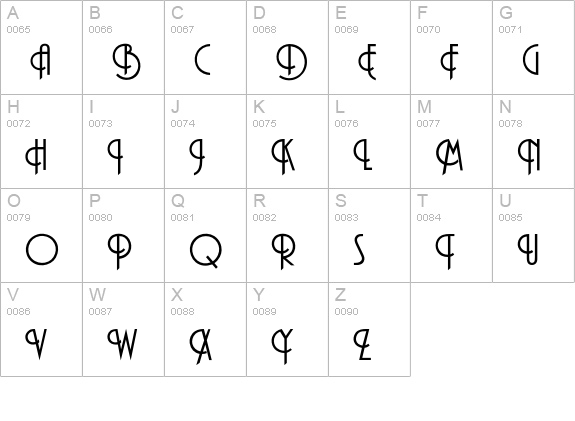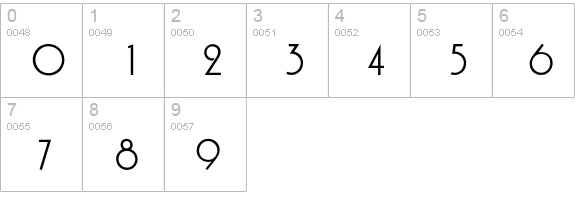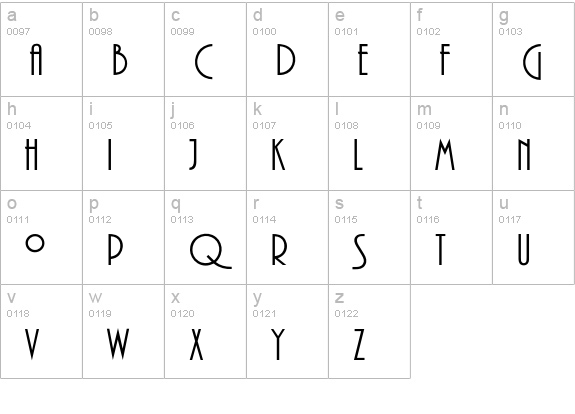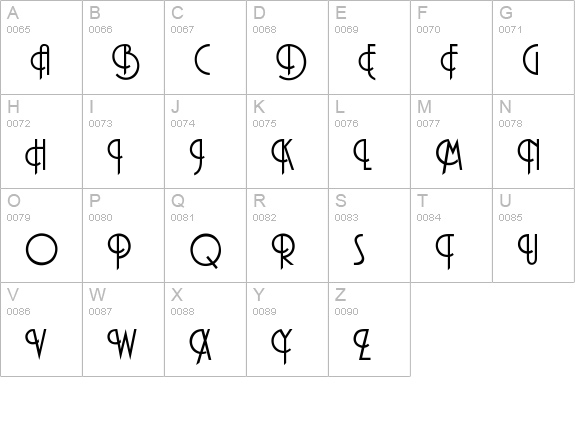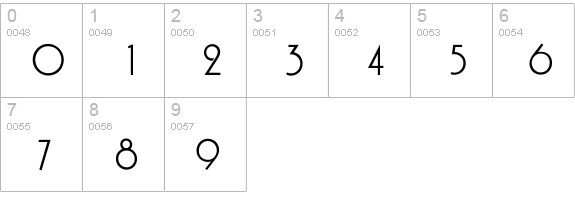
OPTIPashey Font Details
Introducing OPTIPashey font, a sophisticated and modern typeface that exudes elegance and style. With its sleek lines and polished design, OPTIPashey is perfect for adding a touch of class to any project. This versatile font is ideal for a wide range of applications, from branding to editorial design. But the best part? OPTIPashey is available for free download at FontsMarket.com! That's right, you can elevate your designs with this stunning font without breaking the bank. So why wait? Download OPTIPashey today and take your projects to the next level.